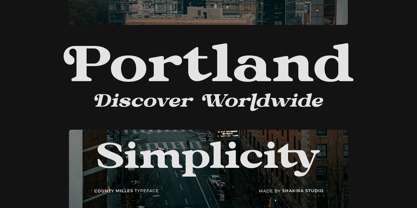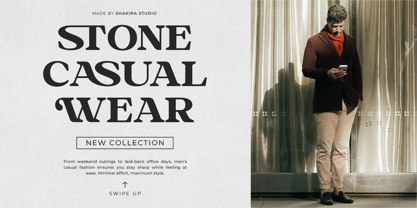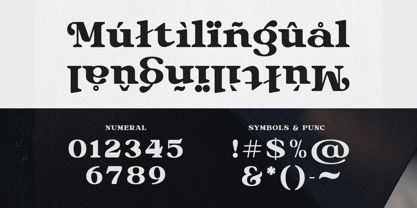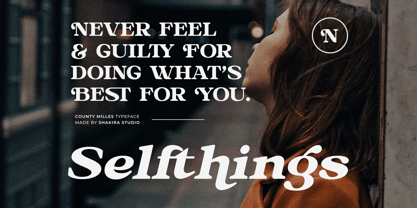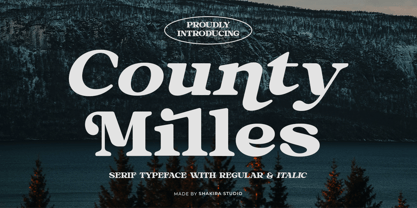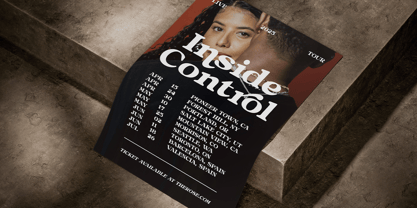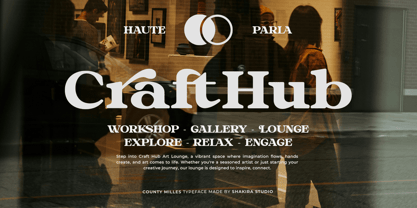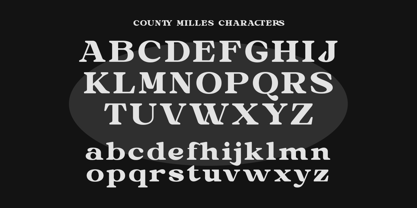
County Milles
by Shakira Studio
The County Milles Font Family was designed by Idhham Cholid Rikzano Yahya and published by Shakira Studio. County Milles contains 2 styles and family package options.
County Miles is a serif typeface that blends modern and retro styles, offering a unique and timeless look. With Regular and Italic variants, along with stylish alternates and ligatures, this font provides high flexibility for various design projects such as branding, posters, magazines, and print materials.
Designed to enhance creativity, County Miles is perfect for graphic designers and branding professionals seeking a font with strong character and high aesthetics. Each letter is crafted with precision, ensuring optimal readability in both digital and print formats.
Elevate your designs with County Miles, a serif typeface that combines style, functionality, and uniqueness. Discover endless possibilities and make your work stand out with a captivating modern retro touch.
• Regular & Italic
• All Multilingual symbol
• Opentype features ( ligature, alternate )
Designers: Idhham Cholid Rikzano Yahya
Publisher: Shakira Studio
Foundry: Shakira Studio